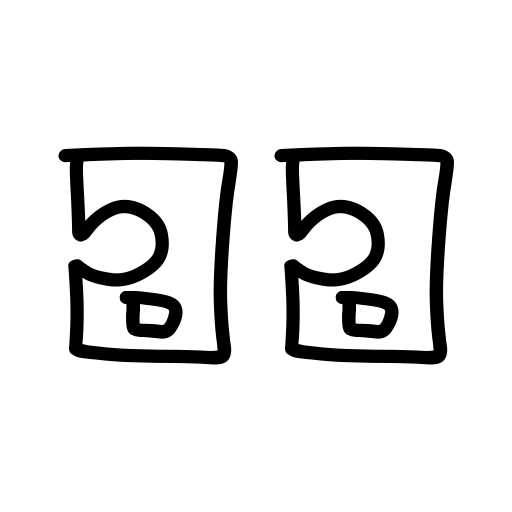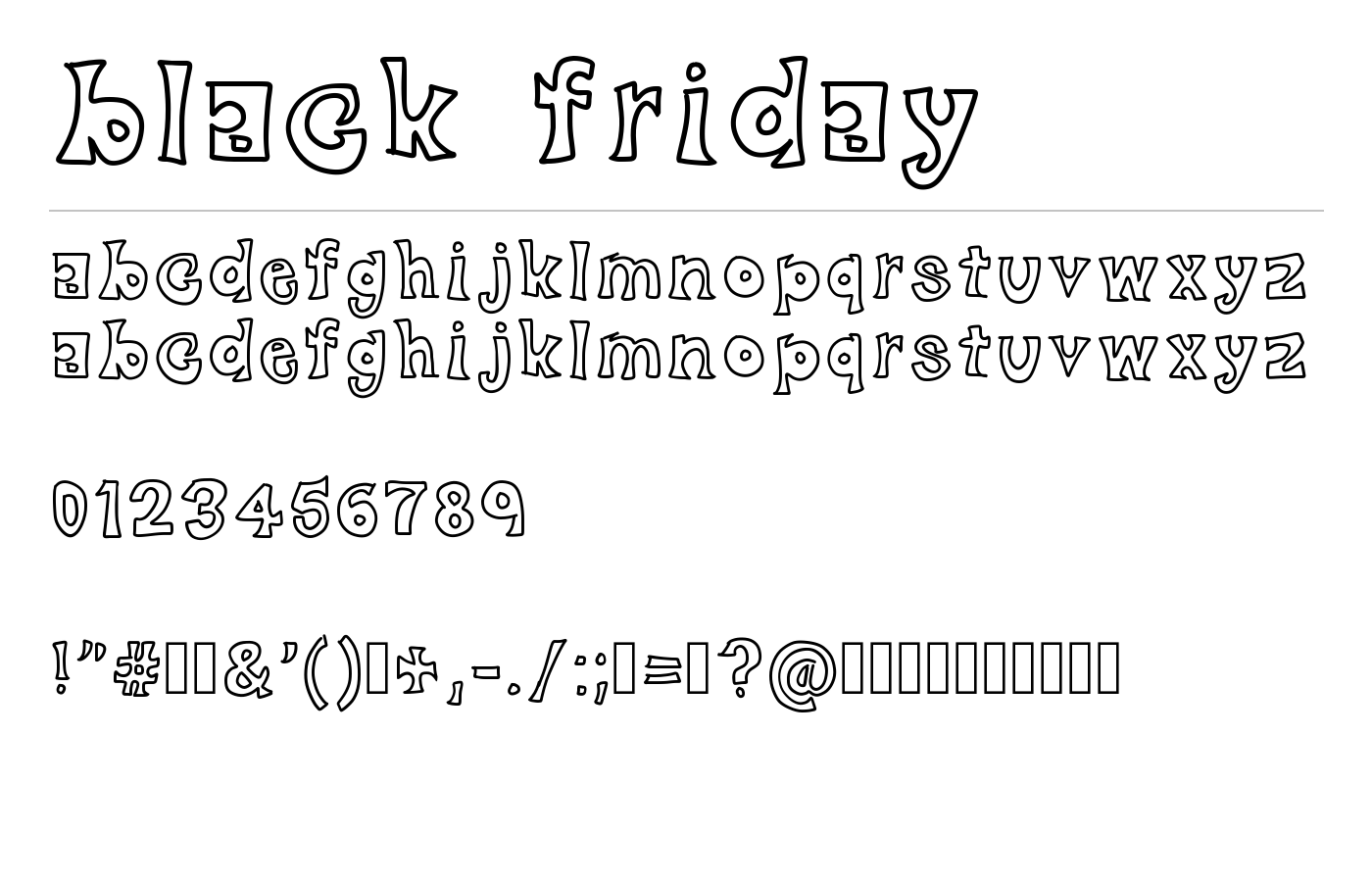
Black Friday is a playful, whimsical sans serif font with a hand-drawn, outlined look that feels casual and fun. Its quirky letter shapes and uneven strokes give it a lively, informal personality perfect for eye-catching headlines, posters, or playful branding aimed at a youthful or creative audience. This font works well where a bold but lighthearted style is needed to create a memorable, approachable vibe.
black friday Font
About black friday Font